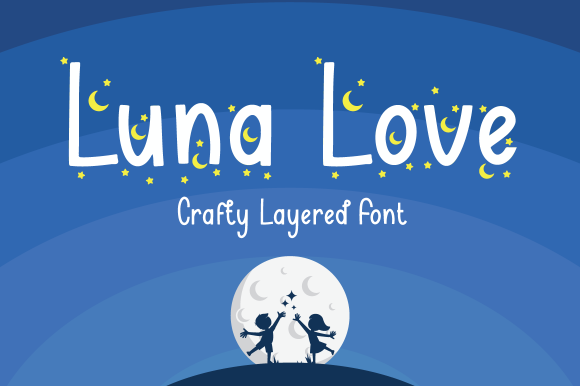
Step into a world of elegance and charm with Luna Love Font, the enchanting display font that will transform your designs into captivating masterpieces. Its relaxed theme and lovely style create a welcoming ambiance, inviting your audience into a realm of creativity and imagination.
Luna Love Font is an artist's dream, designed to bring a touch of magic to your clothing designs. With its intricate and whimsical details, this font will elevate your creations, making them stand out from the mundane and ordinary. Whether you're crafting t-shirts, hoodies, or any other apparel, Luna Love Font will add a dash of enchantment that will leave your customers spellbound.
Beyond the realm of fashion, Luna Love Font is a versatile asset for any designer's toolkit. Its timeless appeal lends itself to a multitude of applications, including posters, invitations, branding materials, and more. Unleash your creativity and let Luna Love Font guide you through a journey of aesthetic bliss.